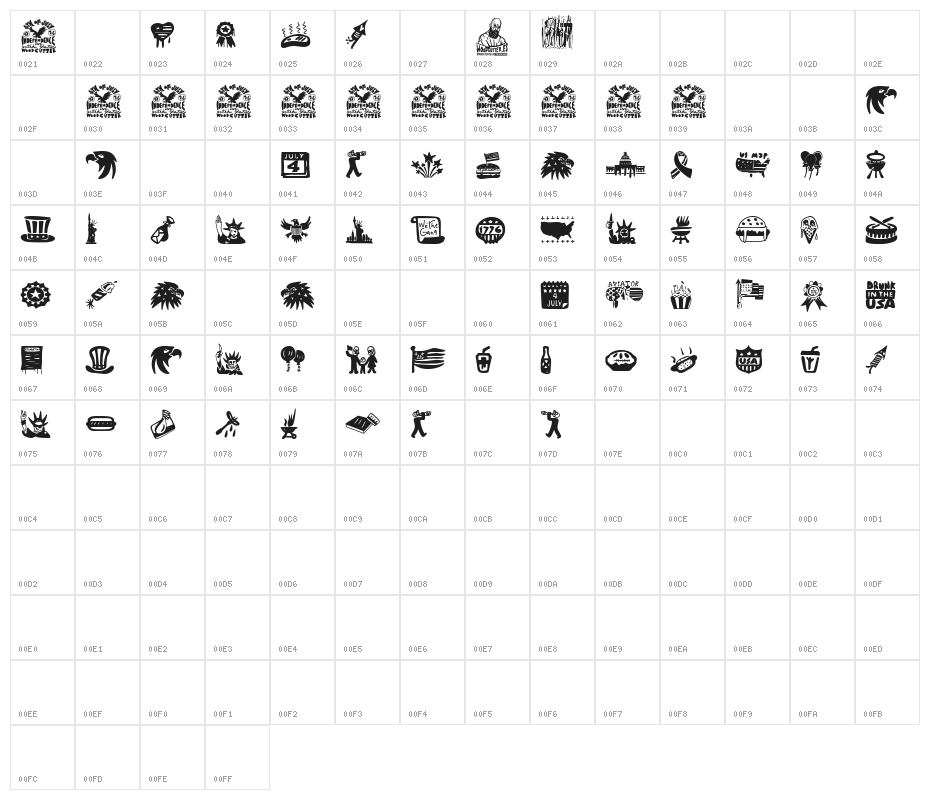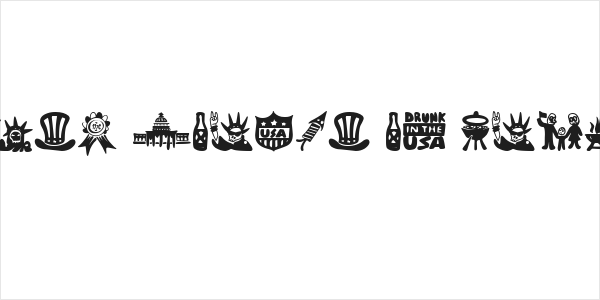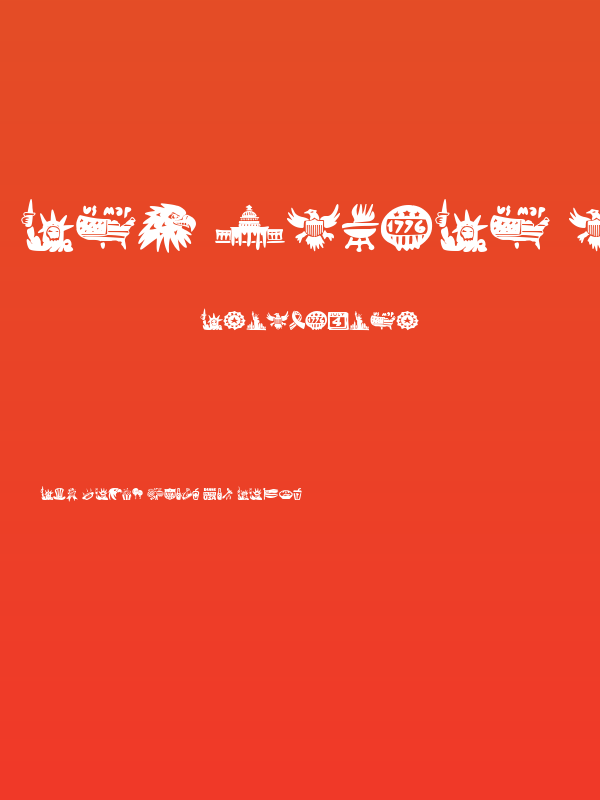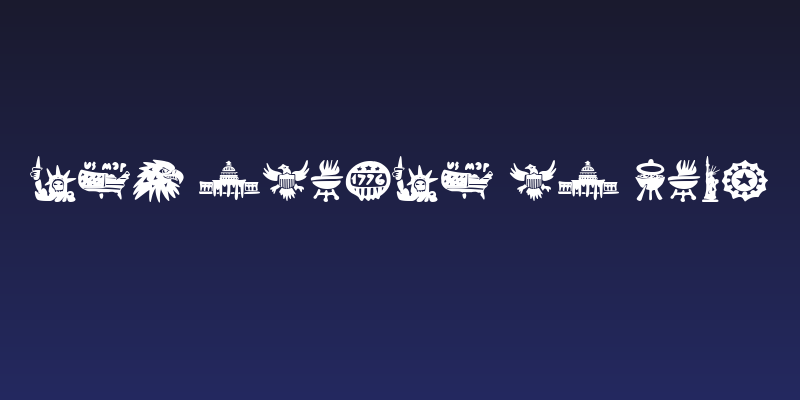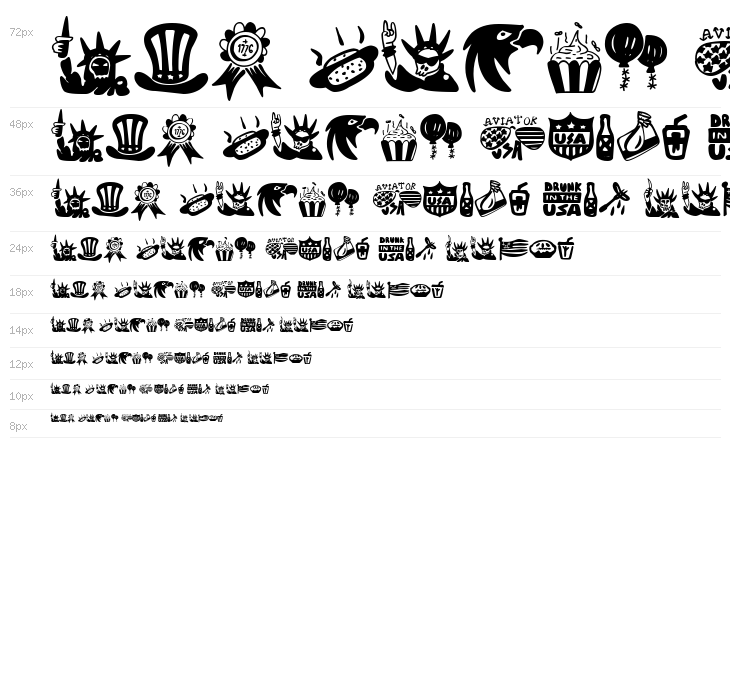
The Fourth of July Font
A decorative display font composed of bold, hand-drawn icons and illustrations themed around the Fourth of July, including fireworks, food, patriotic symbols, and celebratory elements. Each character is represented by a unique, playful graphic rather than traditional letterforms.
| Overall Style | Decorative, Festive, Playful |
| Use Case | Headlines, Posters, Themed Graphics, Invitations |
| Proposed Projects | Holiday event posters, party invitations, themed merchandise, social media graphics, educational materials about Independence Day. |